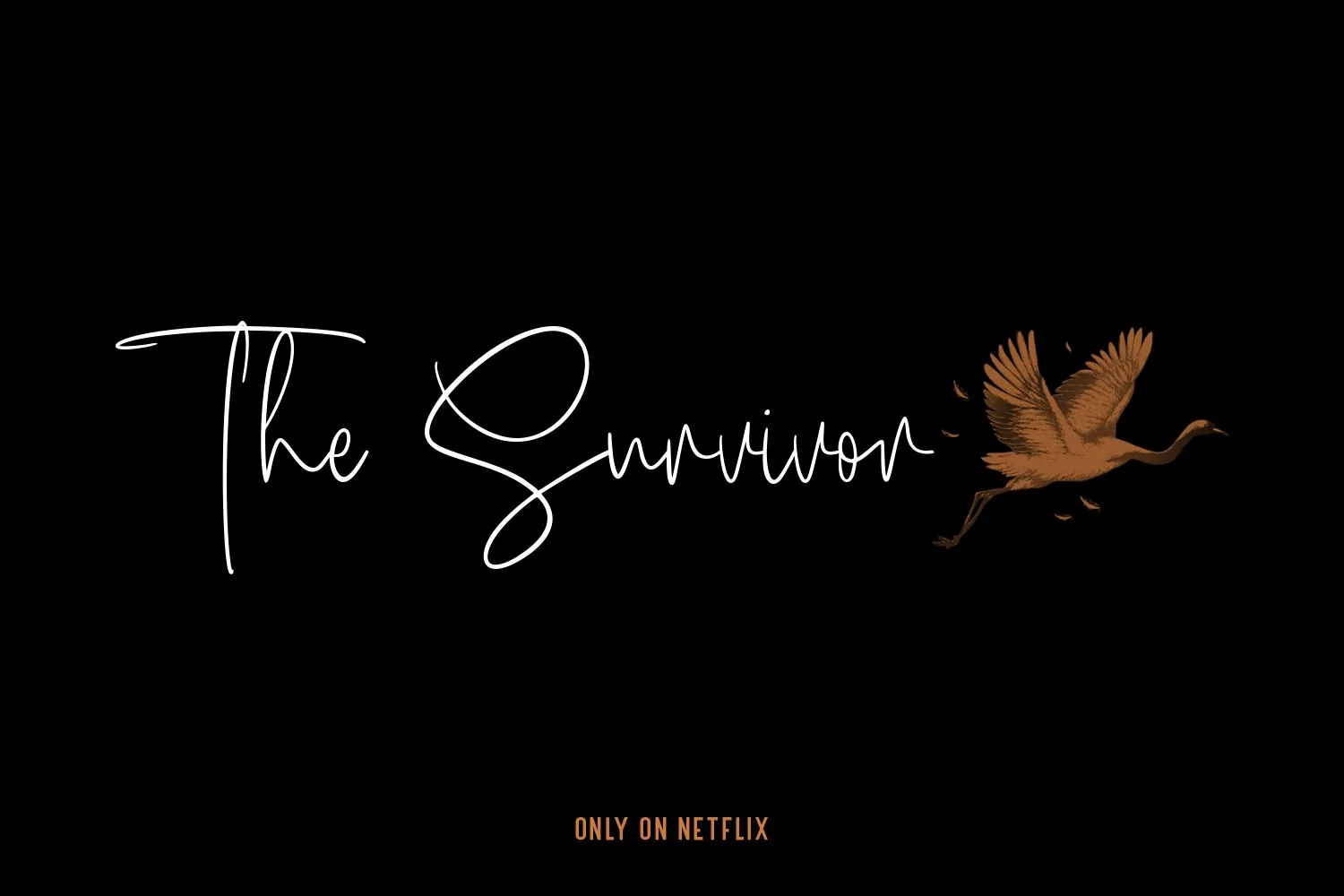
Mc Tellyus is a Fancy casual script font. With thin line stroke, upright and fun character with a bit of ligatures. To give you an extra creative work. Mc Tellyus font support multilingual more than 100+ language. This font is good for logo design, Social media, Movie Titles, Books Titles, a short text even a long text letter and good for your secondary text font with sans or serif. Make a stunning work with Mc Tellyus font.
Mc Tellyus